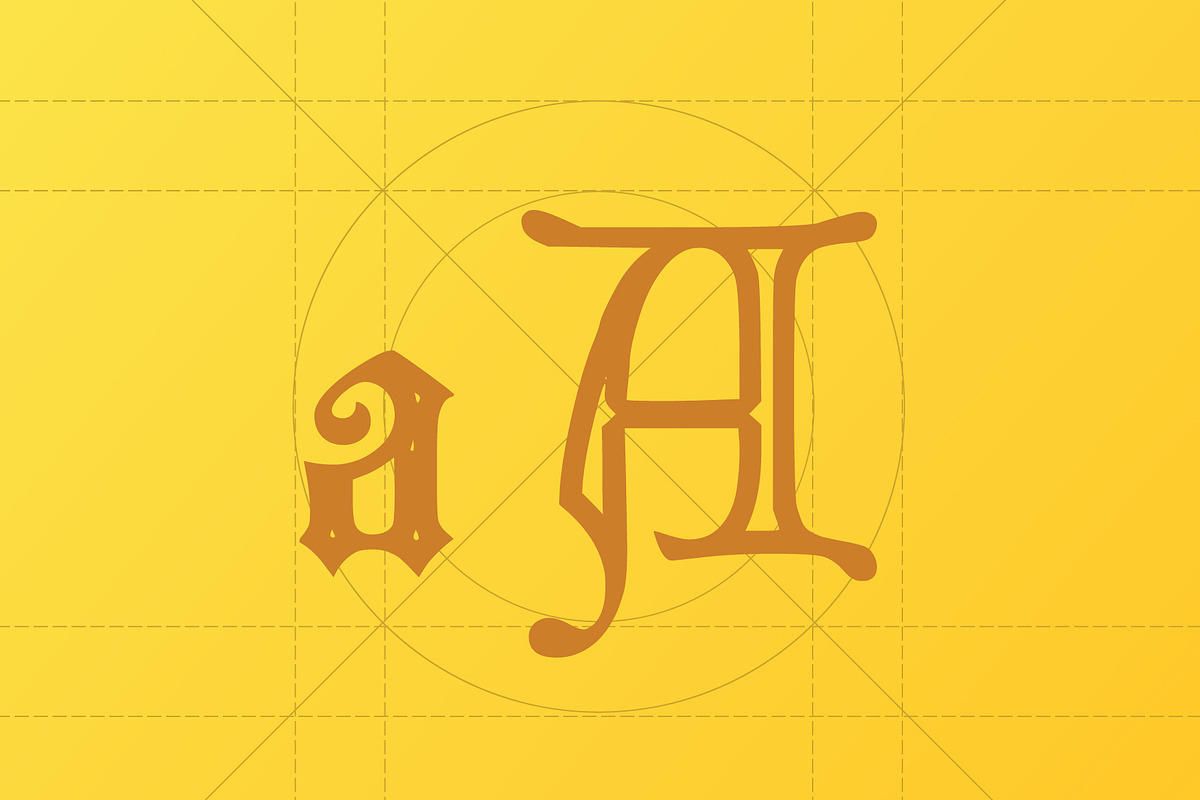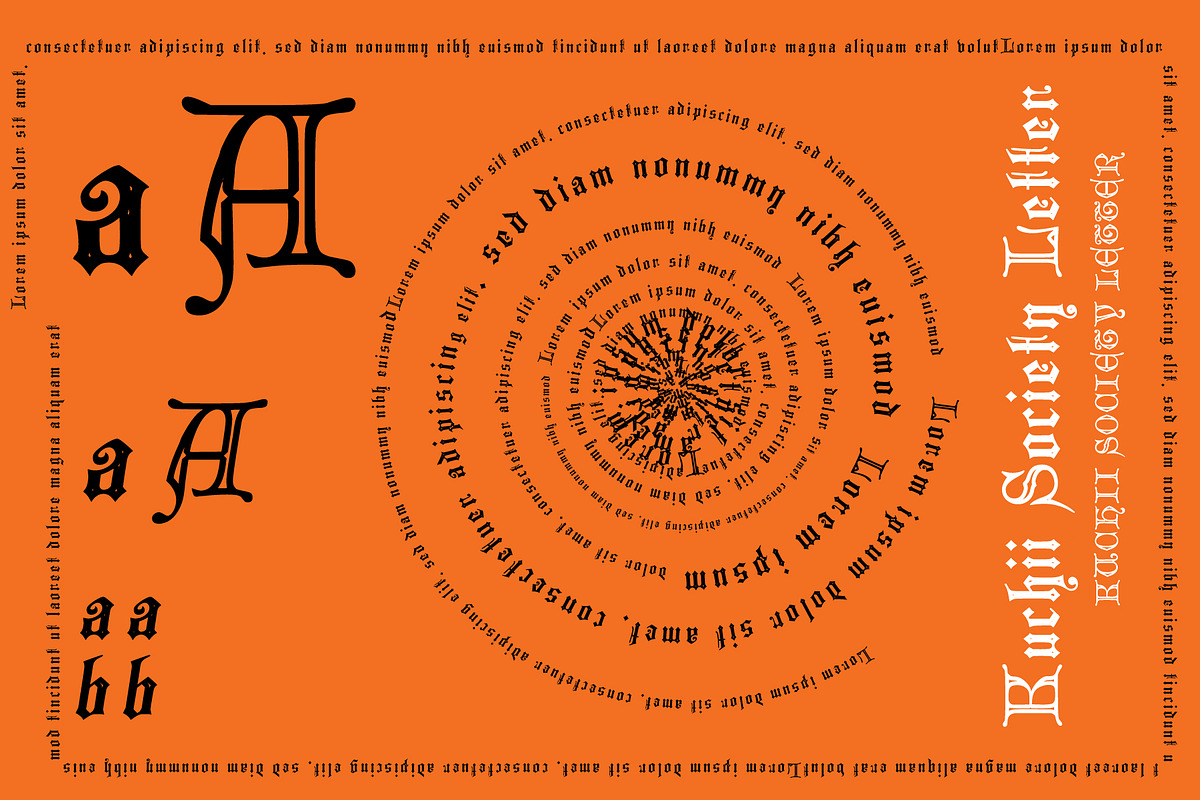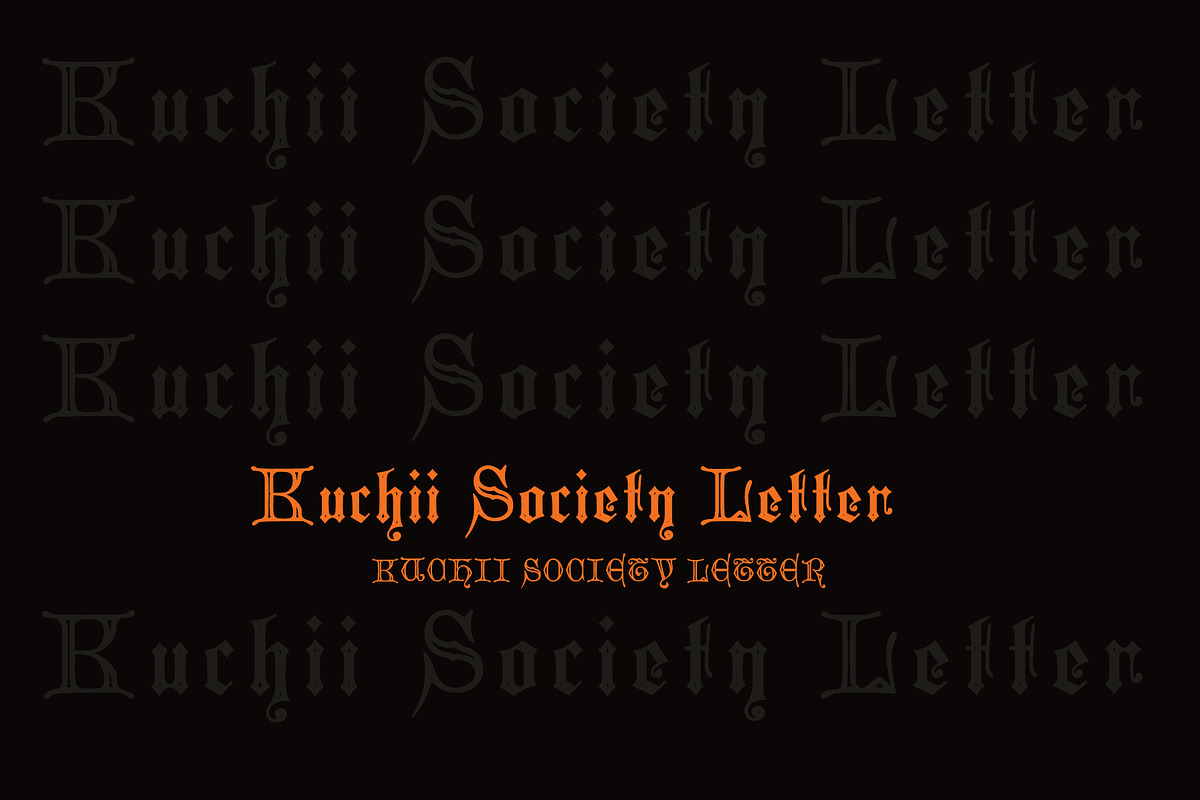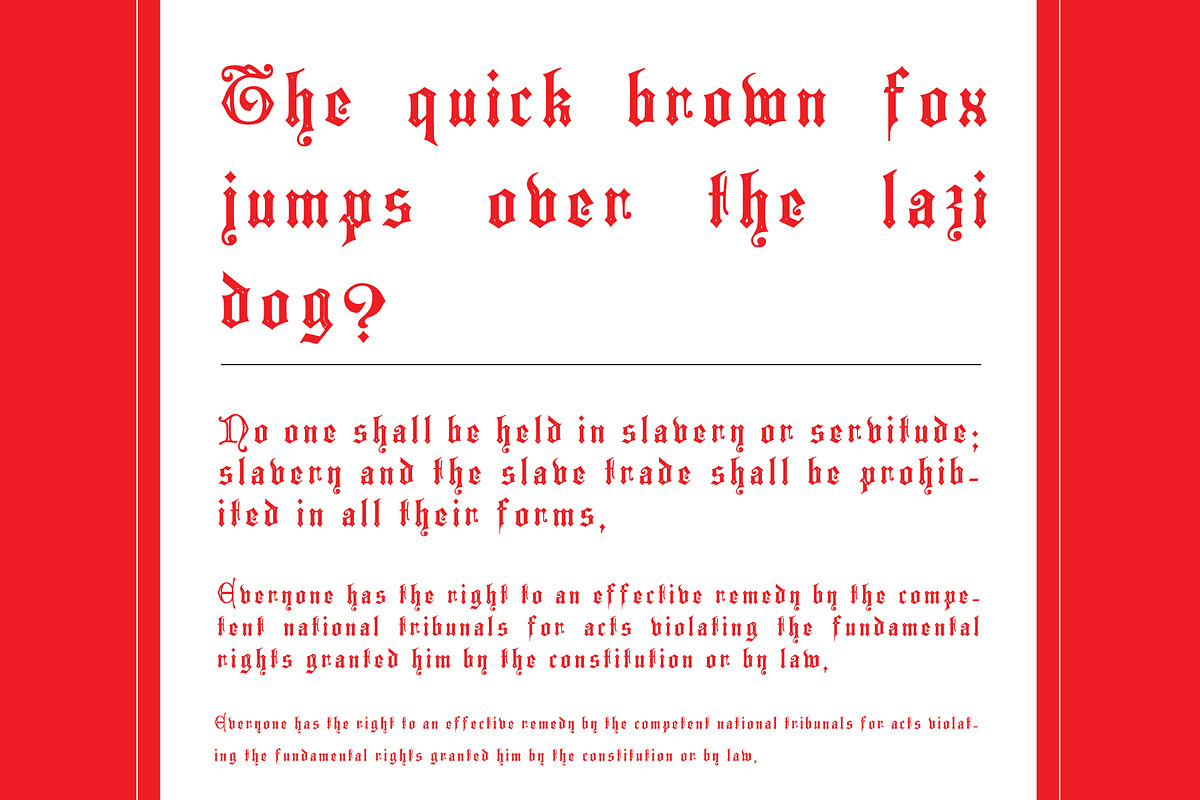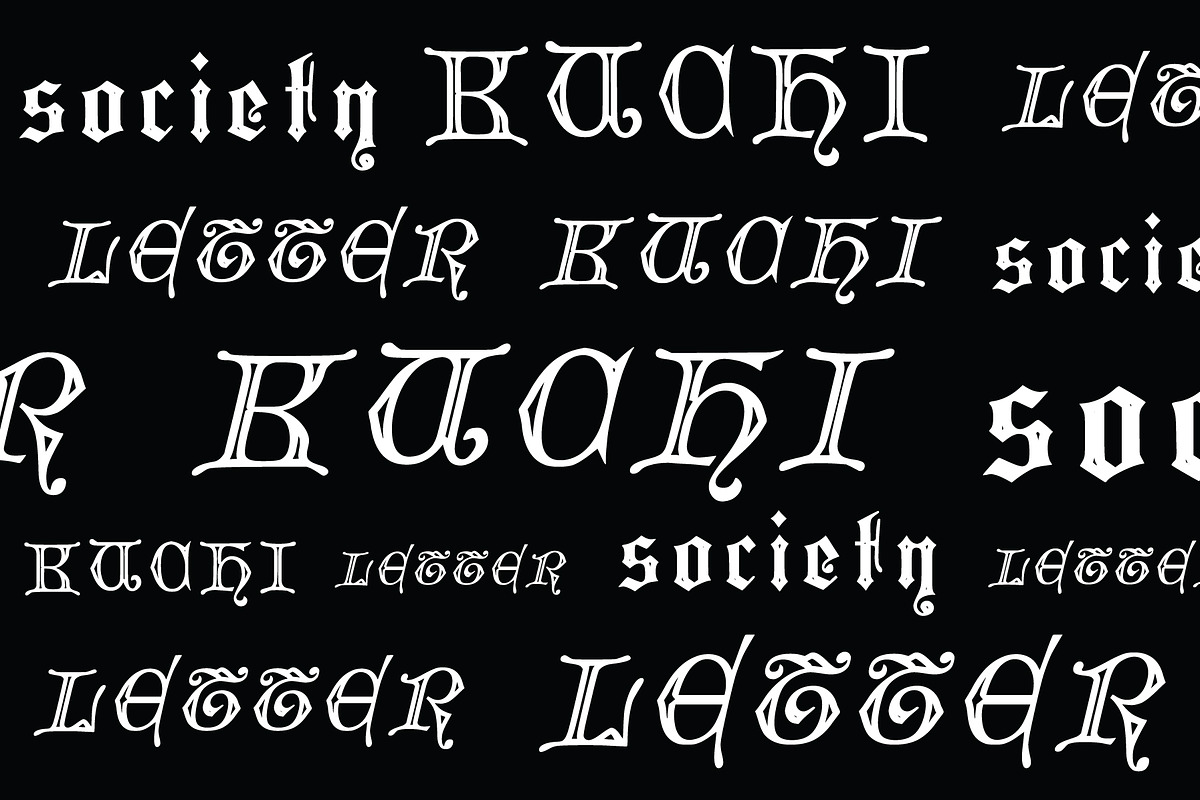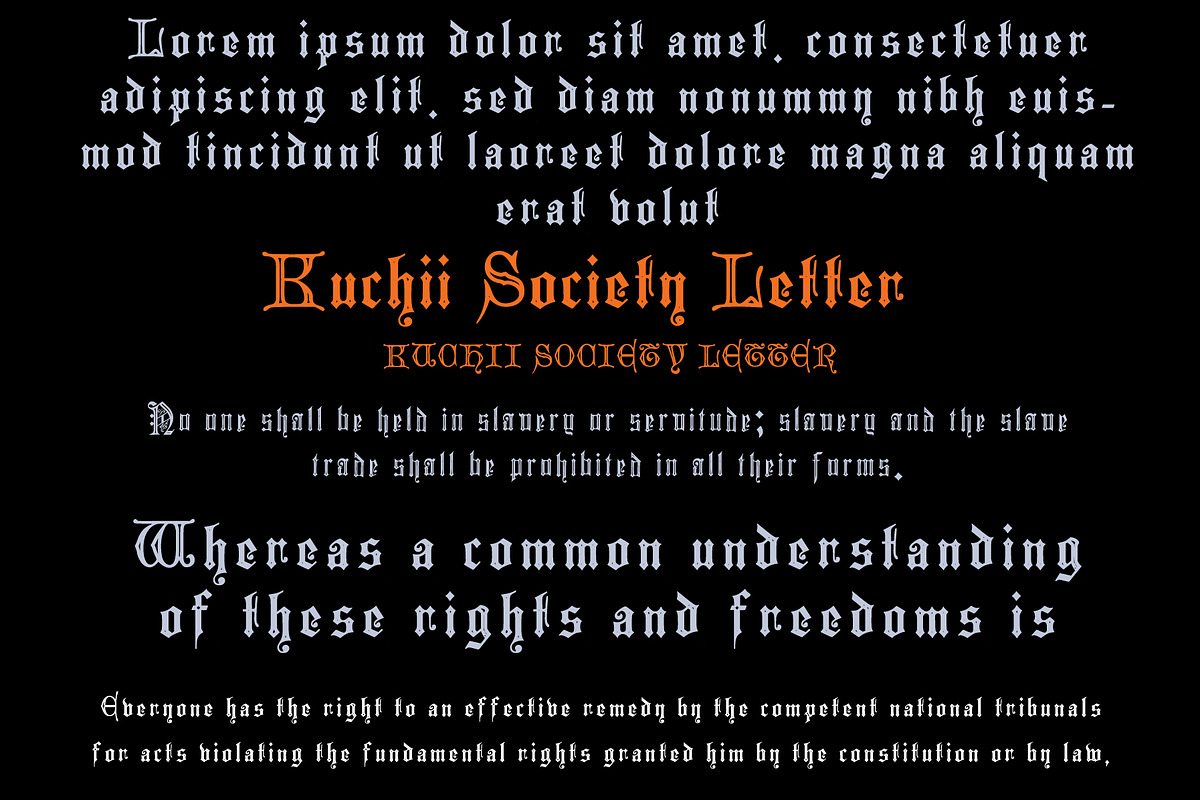
Kuchii Society Letter
"Blackletter (sometimes black letter or black-letter), also known as Gothic script, Gothic minuscule or Gothic type, was a script used throughout Western Europe from approximately 1150 until the 17th century"
This font smiliar artistic as BlackLetter Old English Font
the named is Kuchi Society Letter Kuchii Society Letter Regular Kuchii Society Letter Italic